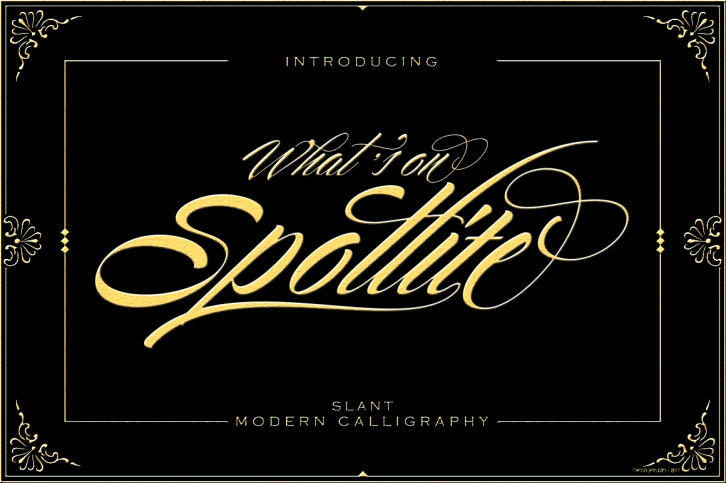
Spotlite Slant is a trendy and unique font with an authentic style. It was designed by Sapre Studio and it's a great choice for creative people who need such a font. It was released on October 2, 2019 and the file size is 13.65 MB. Spotlite Slant will add an organic vibe to any design idea!